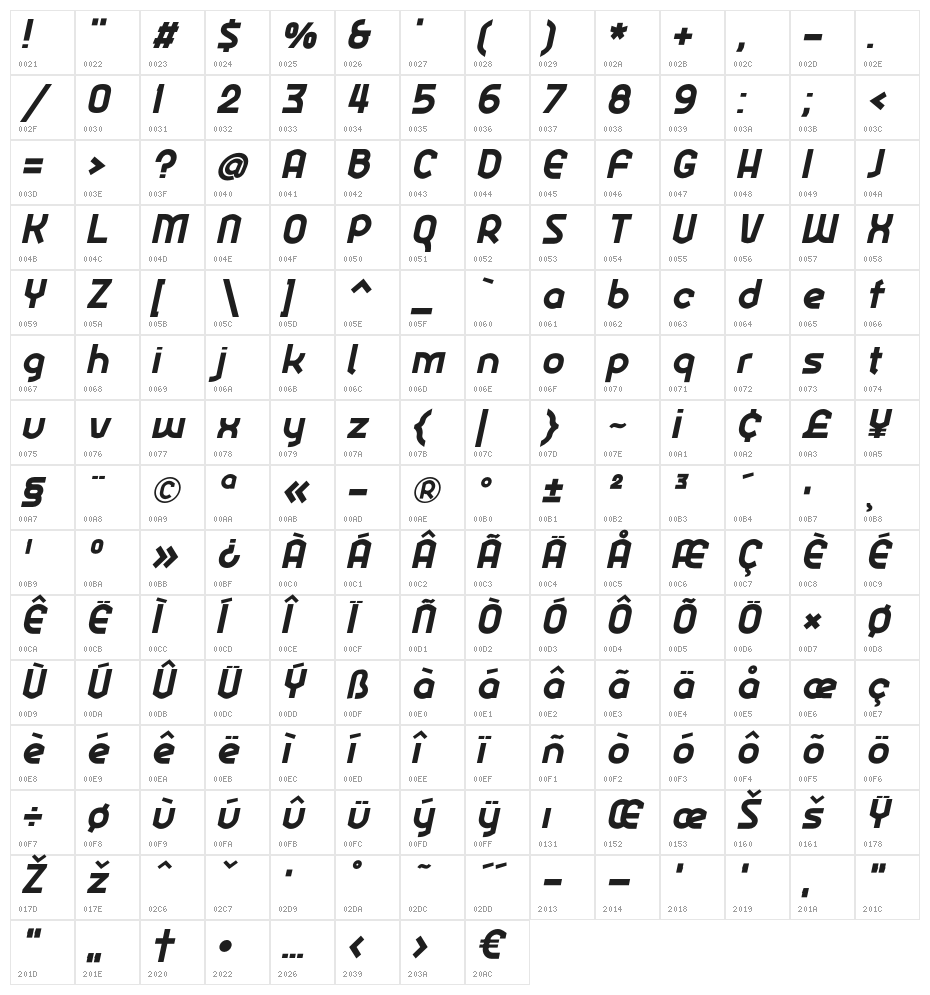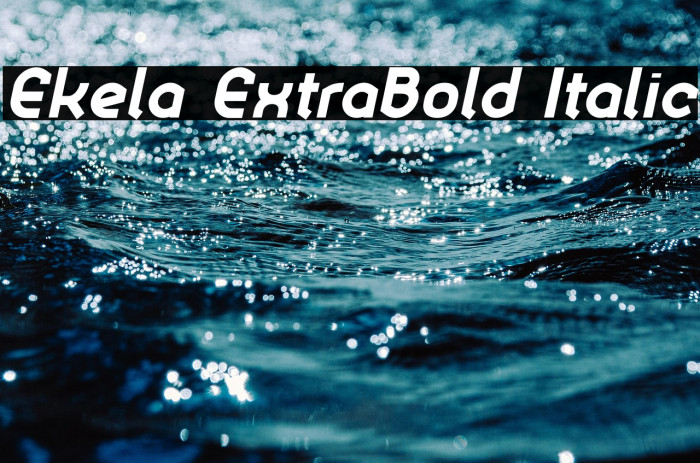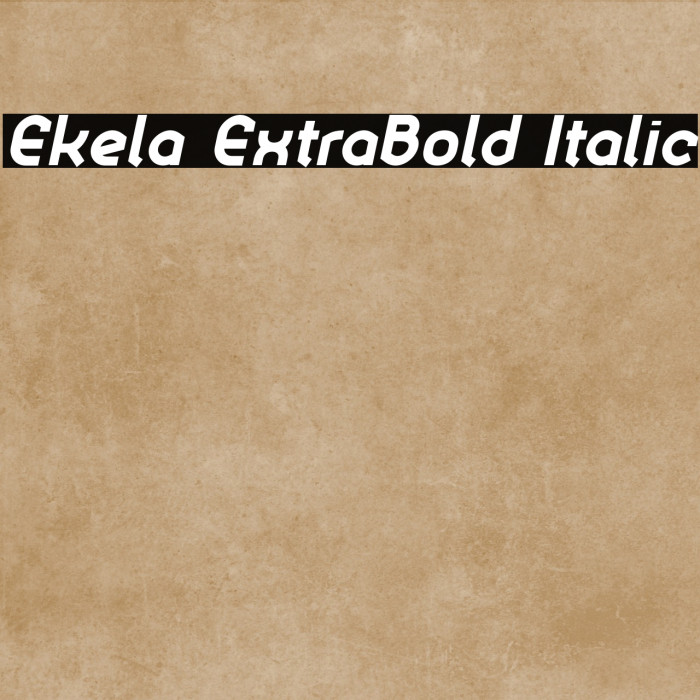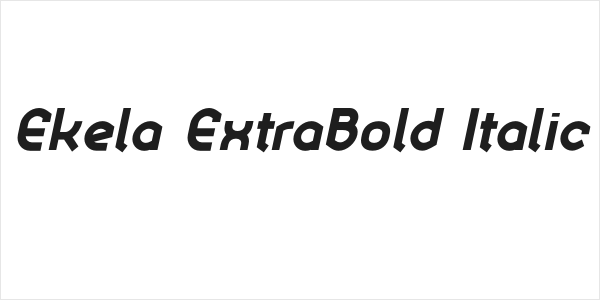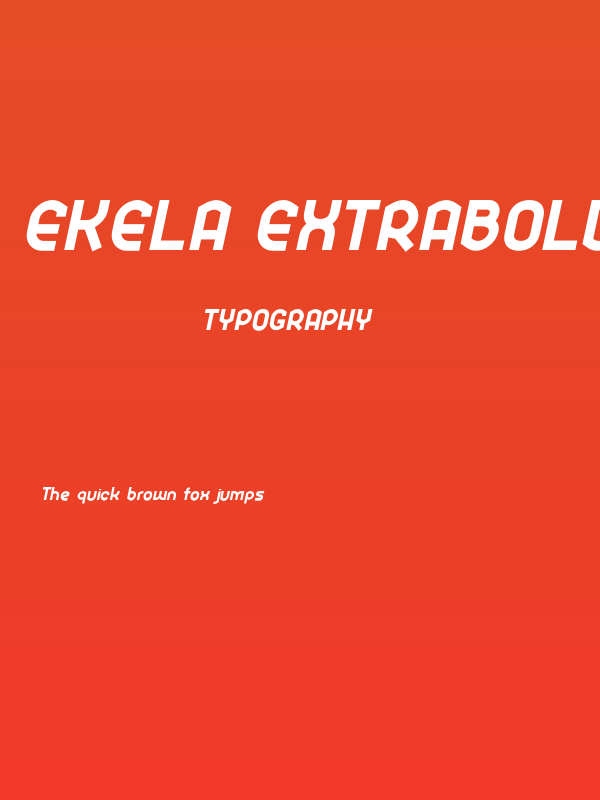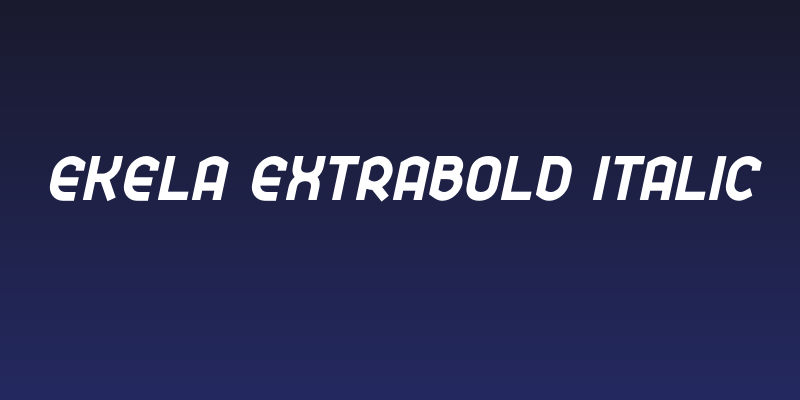
Ekela ExtraBold Italic Font
Ekela ExtraBold Italic Description
This font exhibits a bold and dynamic style with a pronounced italic slant, giving it a sense of motion and energy. The characters are thick and robust, with a modern and geometric design that emphasizes clarity and impact. The uppercase letters are particularly striking, with sharp angles and clean lines, while the lowercase letters maintain a consistent style that complements the overall aesthetic. The numerals are bold and easily readable, making them suitable for a variety of applications. Special characters are well-integrated, maintaining the font's cohesive look. This font is designed to stand out, making it ideal for attention-grabbing headlines and titles.